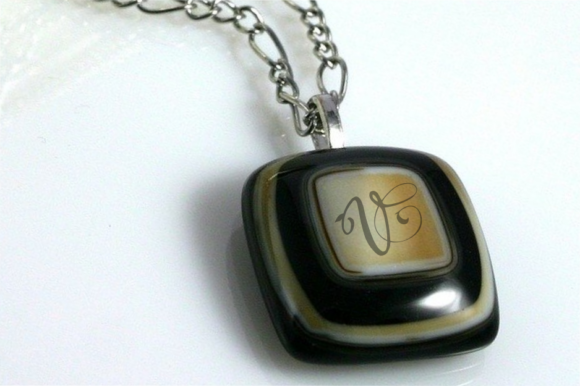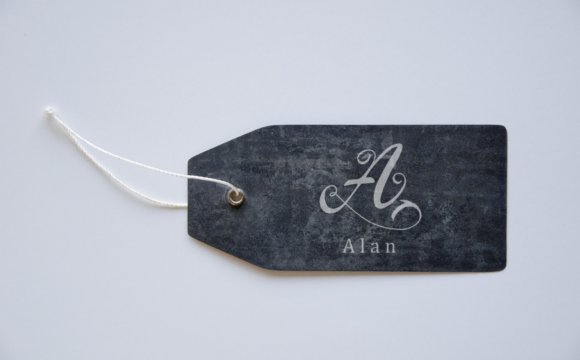
Introduction to Monogram Veg Font
You’re browsing through design inspiration boards, searching for the perfect font to elevate your latest creative project. Maybe you’re crafting a wedding invitation, or designing a new logo for your business. Whatever the project, you know that the right font can make all the difference. And that’s where the Monogram Veg Font comes in – a stunning, high-quality display font that’s sure to capture attention.
With its delicate swashes and elegant lines, the Monogram Veg Font is a design resource that’s perfect for a wide range of creative applications. Whether you’re looking to add a touch of sophistication to your stationery or create a show-stopping title for your next project, this versatile font is sure to deliver. And the best part? It’s available as a free download, making it an accessible addition to any design toolkit.
- The font features a unique, modern design with a vegetable-inspired theme, adding a touch of whimsy to any project.
- Monogram Veg Font is a great addition to any design resource library, offering a fresh and creative alternative to traditional fonts.
Honest Review: Monogram Veg Font
I recently stumbled upon the Monogram Veg Font while searching for a unique design resource for a creative project. I must say, I was quite impressed with its high quality and versatility.
- ✨ The font’s intricate design and subtle details make it perfect for projects that require a touch of elegance and sophistication.
- ⚠️ The font may not be suitable for projects that require a bold or attention-grabbing typography.
- ⚠️ The intricate design may not be easily readable at small font sizes.
Overall, I’m quite impressed with the Monogram Veg Font. It’s a high-quality design resource that’s perfect for creative projects that require a touch of sophistication and elegance. While it may have some limitations, I believe it’s a great addition to any designer’s toolkit.
The Monogram Veg Font is ideal for various design projects, including logos, business cards, and social media graphics. It’s also great for creating invitations, menus, and other print materials that require a high-quality, unique font.